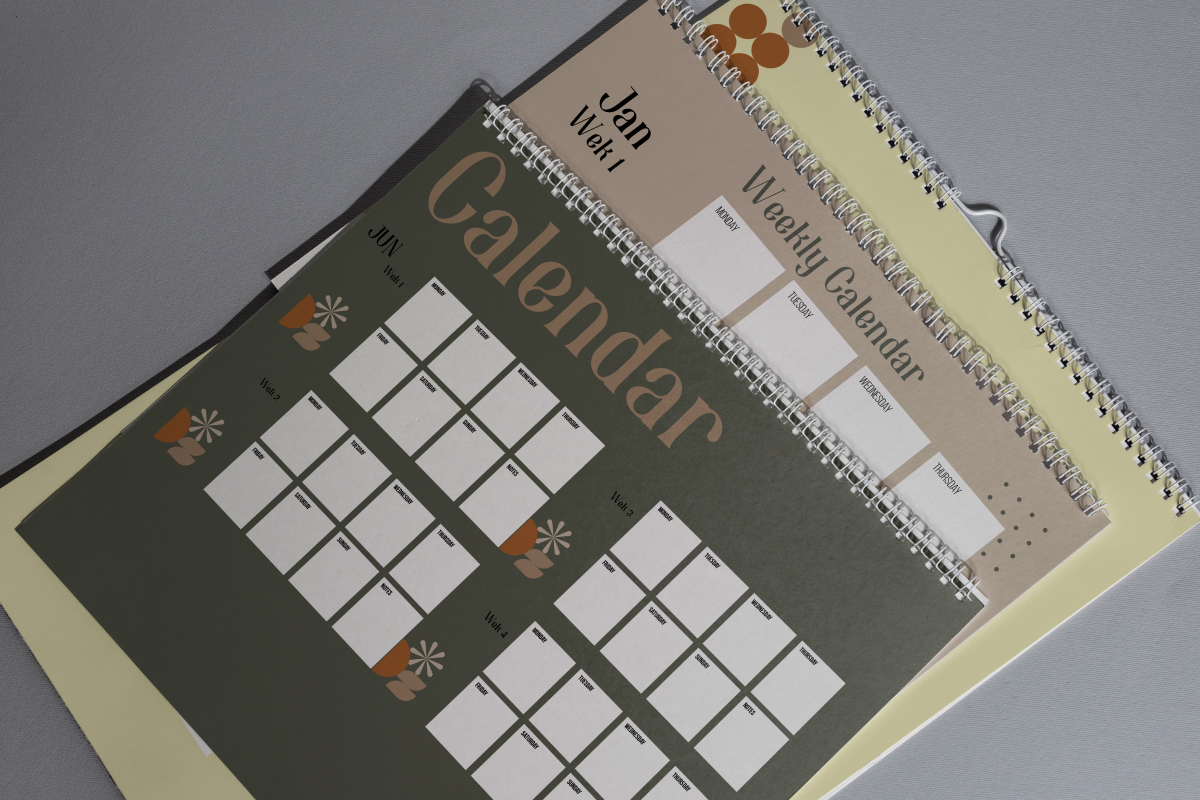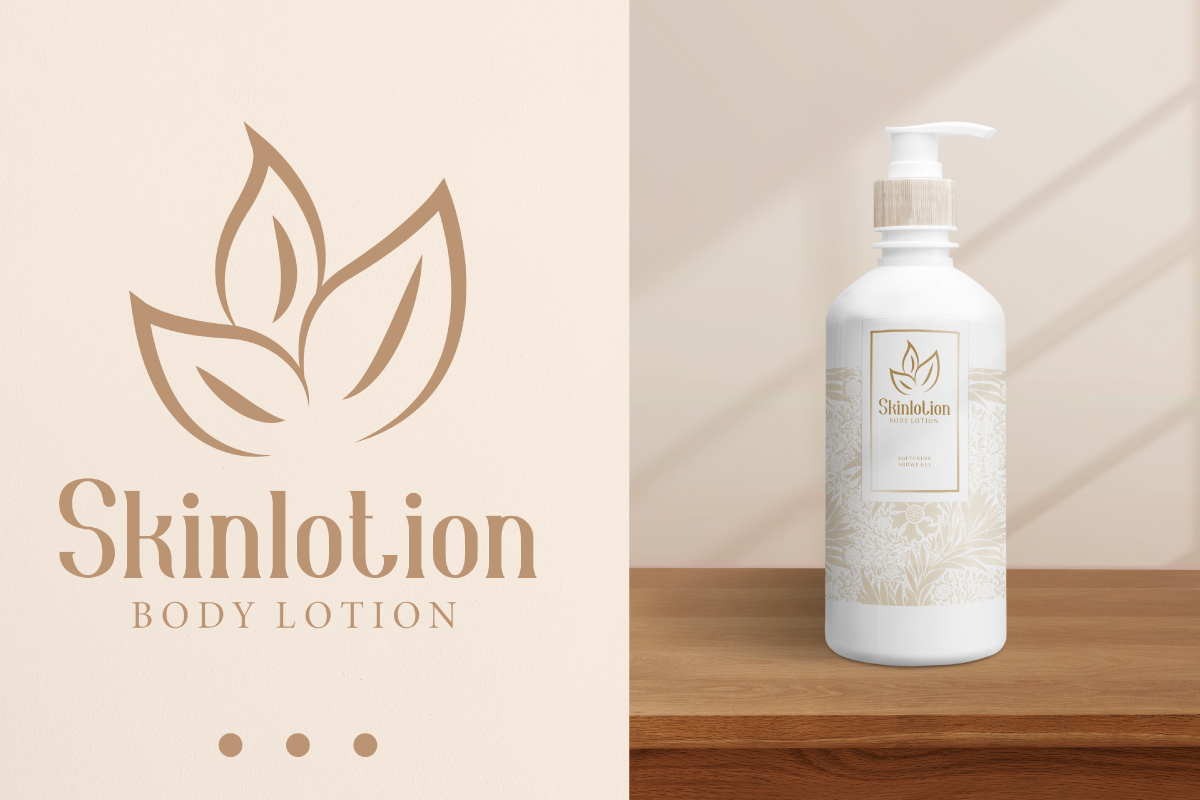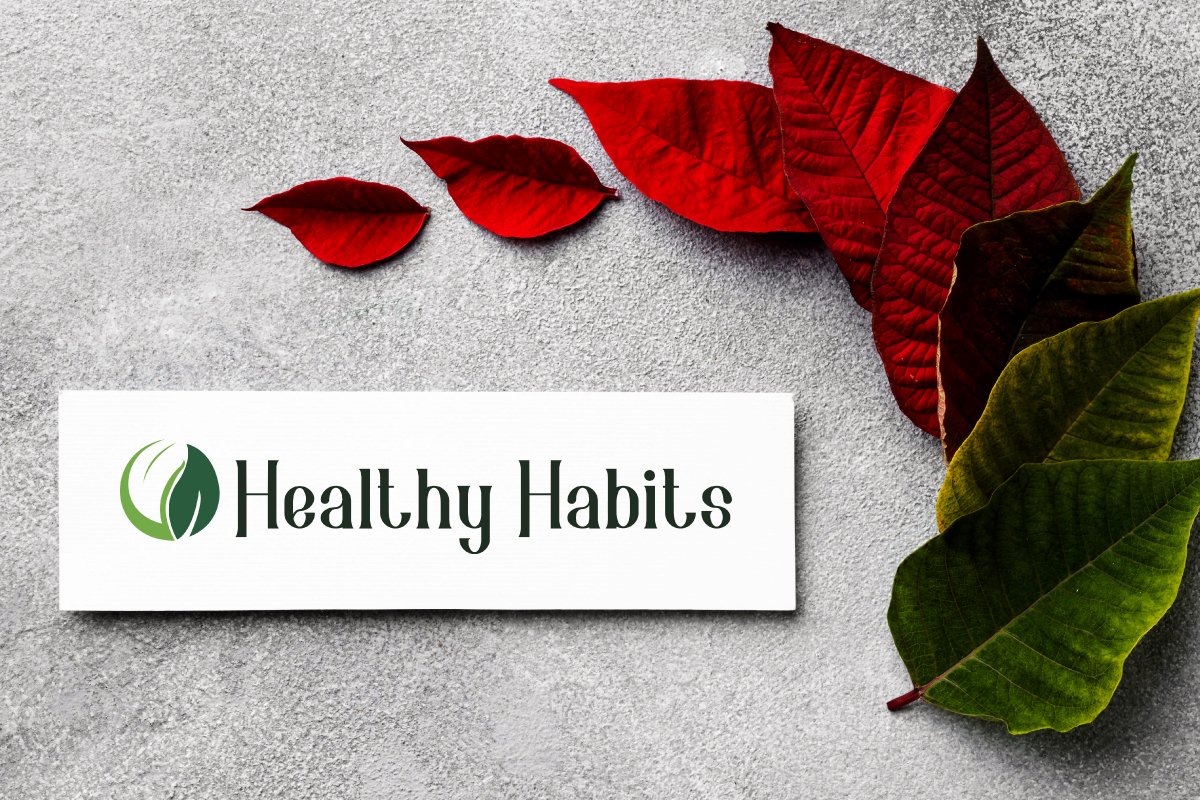
Roman Murphy Serif Font
This is a serif font family with luxurious and stylish style. The characteristics of the font also classic and sophisticated. The font will be awesome for logo, brandings, headlines, signage etc. Roman Murphy Font come with two styles : Regular and Italic.